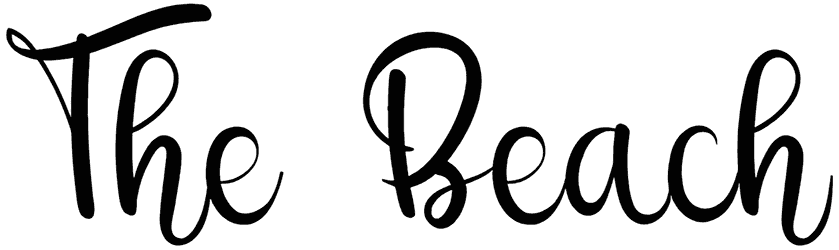
The Beach Font
If you forage on fantastic script fonts and your project needs a bit more sociable feeling in its texture, see our awesome post and enjoy it. Here, The Beach with its artistic face dancing shows off its best to furnish satisfying effects with its charming vintage indication.
This love font with A-Z characters could accent your sketch in a catchy, factual way. Grab it for free and go them to cast the spell on your typography and succeed!
The Beach is a chic, refined script font that emanates sophistication and elegance. Its stylish alternates and ligatures make this font the perfect match for any project.